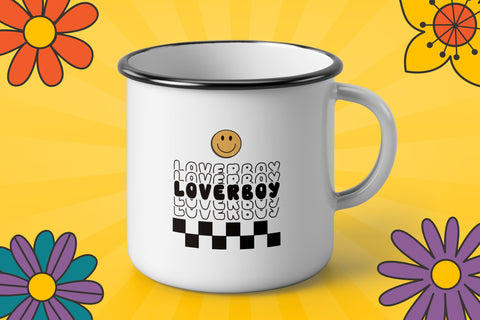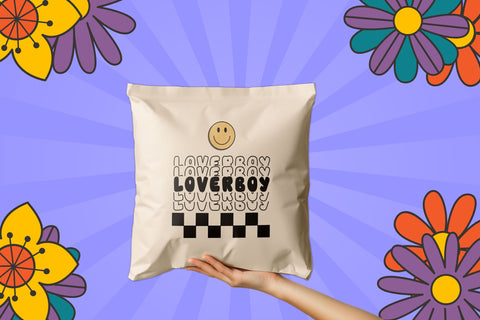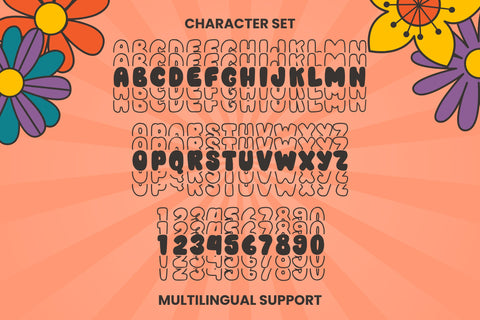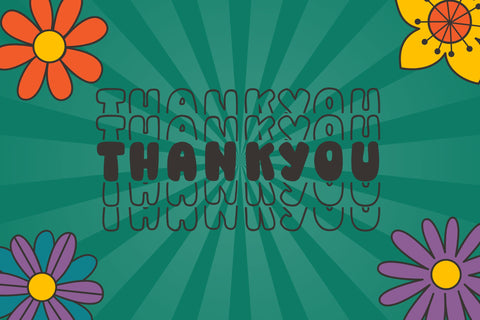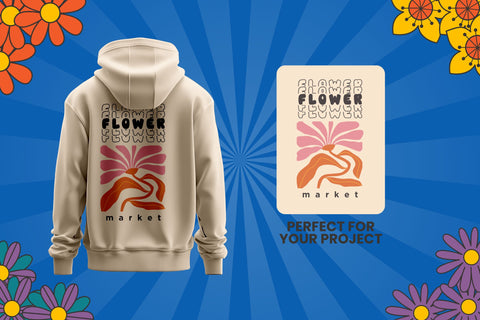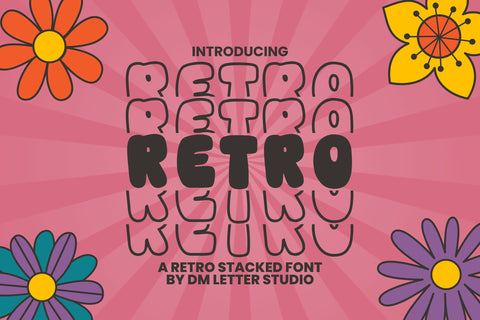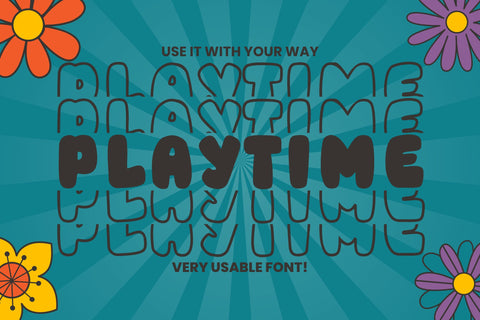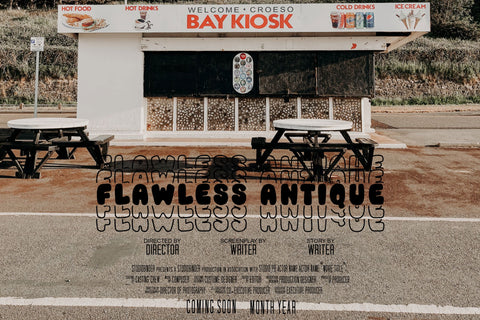
Retro Stacked
Retro Stacked – Bold & Playful Display Font
Retro Stacked is a fun and vibrant display font that brings groovy retro vibes into your designs. With bold letterforms and a stacked layout style, this font is perfect for creating eye-catching headlines, nostalgic branding, posters, apparel, and anything that needs a pop of personality. Its vintage-inspired aesthetic mixed with modern playfulness makes it a standout choice for designers who love bold statements.
✔ Retro-Inspired Design – Chunky and vibrant letterforms with a stacked layout for a nostalgic feel.
✔ Perfect for Bold & Playful Projects – Great for retro posters, branding, merchandise, social media graphics, and more.
✔ High Impact Display Font – Designed to grab attention and bring personality to your designs.
✔ Complete Character Set – Includes uppercase, lowercase, numbers, punctuation, and multilingual support.